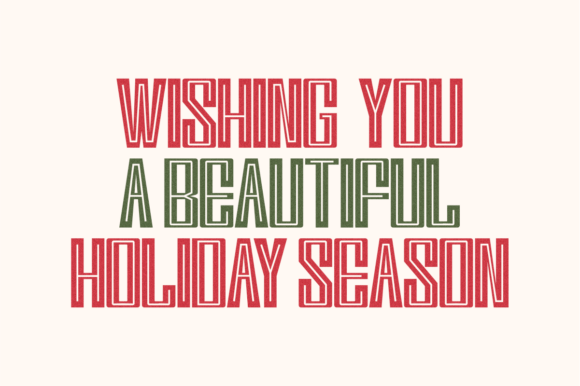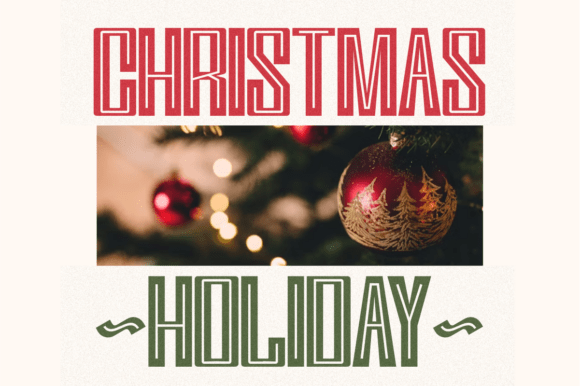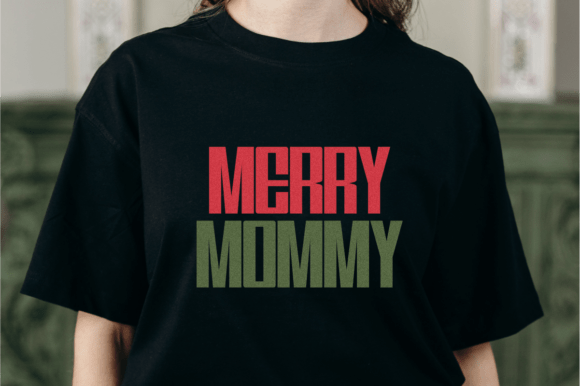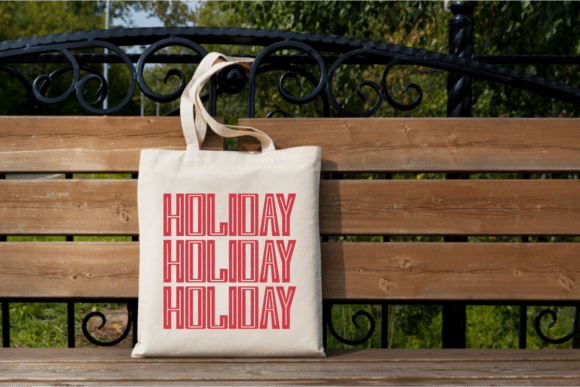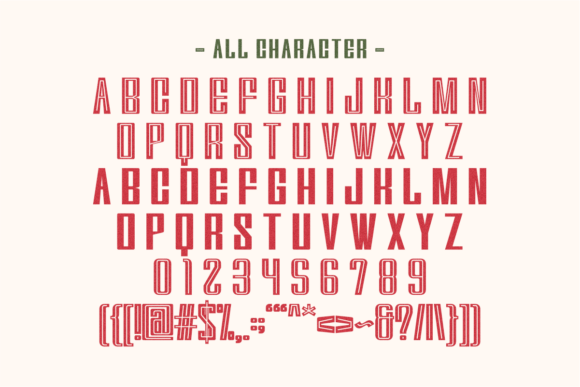
Dancing Holiday Font: A Cheerful and Striking Typeface for Your Festive Designs
Are you looking for a font that captures the essence of the holiday season? Do you want to create bold, eye-catching designs that evoke a sense of nostalgia and joy? Look no further than the Dancing Holiday Font, a cheerful and striking outline display typeface that’s perfect for Christmas posters, festive branding, and high-impact social media.
A Retro, Ultra-Condensed Structure
The Dancing Holiday Font features a retro, ultra-condensed structure that’s sure to turn heads. Its tall, double-line style is perfect for bold, layered designs and seasonal apparel. The font’s unique design makes it ideal for creating visually striking headlines, titles, and captions that will grab the attention of your audience.
Perfect for Festive Designs
Whether you’re designing Christmas posters, holiday greeting cards, or festive social media graphics, the Dancing Holiday Font is the perfect choice. Its charming, nostalgic feel is sure to evoke a sense of joy and wonder, making it ideal for any holiday-themed project. The font’s bold, striking design also makes it perfect for creating high-impact social media graphics that will stand out in a crowded feed.
Key Features of the Dancing Holiday Font
- Retro, ultra-condensed structure: The Dancing Holiday Font features a unique, retro-inspired design that’s sure to turn heads.
- Tall, double-line style: The font’s tall, double-line style makes it perfect for bold, layered designs and seasonal apparel.
- Charming, nostalgic feel: The Dancing Holiday Font has a charming, nostalgic feel that’s sure to evoke a sense of joy and wonder.
- Perfect for festive designs: The font is ideal for Christmas posters, festive branding, and high-impact social media graphics.
Why Choose the Dancing Holiday Font?
There are many reasons why the Dancing Holiday Font is the perfect choice for your festive designs. Here are just a few:
- Unique design: The Dancing Holiday Font has a unique, retro-inspired design that’s sure to stand out from the crowd.
- Versatile: The font is versatile and can be used for a wide range of holiday-themed projects, from Christmas posters to festive social media graphics.
- High-quality: The font is high-quality and is sure to look great on any device or platform.
How to Use the Dancing Holiday Font
Using the Dancing Holiday Font is easy. Here are just a few tips to get you started:
- Choose the right size: The Dancing Holiday Font is a display font, so it’s best used at larger sizes (such as 24pt or larger).
- Experiment with colors: The font looks great in a wide range of colors, so don’t be afraid to experiment and find the perfect color for your design.
- Pair with other fonts: The Dancing Holiday Font pairs well with other fonts, so consider using it in combination with a sans-serif font for a bold, layered look.
If you’re looking for a font that captures the essence of the holiday season, look no further than the Dancing Holiday Font. Its cheerful, striking design makes it perfect for Christmas posters, festive branding, and high-impact social media graphics. With its retro, ultra-condensed structure and charming, nostalgic feel, this font is sure to evoke a sense of joy and wonder in your audience. So why wait? Download the Dancing Holiday Font today and start creating your own festive designs!